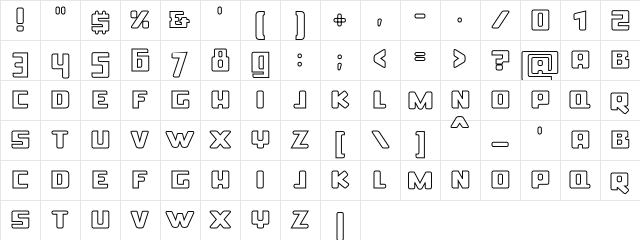
ss_boldin Line
Style: Line
Foundry: serge shi
Designer: serge shi
Design Context for ss_boldin
ss_boldin is a composed and adaptable typeface that performs quietly and consistently across a wide range of design contexts. Its bold stroke weight gives it real presence on the page.